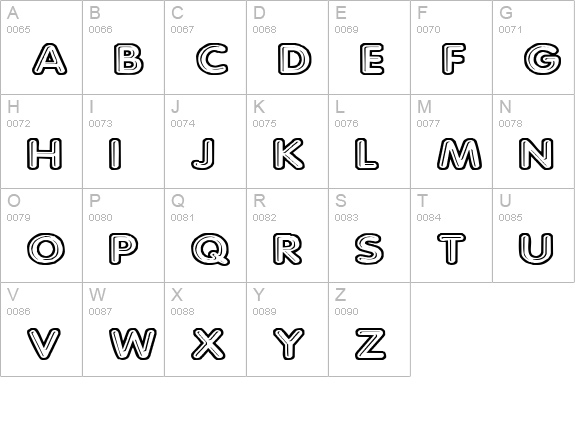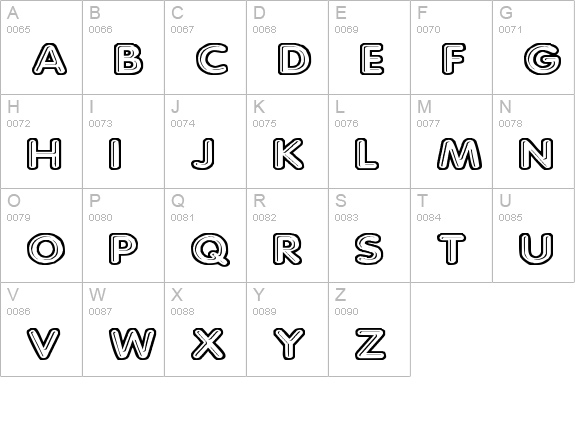
Parkvane Font Details
Parkvane is a modern and stylish font that effortlessly combines elegance with a touch of playfulness. This versatile typeface is perfect for a wide range of design projects, whether you're creating eye-catching logos, captivating headlines, or stunning social media graphics. With its clean lines and balanced letterforms, Parkvane exudes a sense of sophistication and professionalism. Its unique character shapes and subtle flourishes add a hint of personality, making it a font that stands out from the crowd without overpowering your design. One of the best things about Parkvane is that it is free. That's right, this exceptional font is available to download at FontsMarket.com, completely free of charge. Whether you're a professional designer looking to add a new font to your collection or a hobbyist seeking to enhance your creative projects, Parkvane is there for you, without any cost. The versatility of Parkvane is further enhanced by its extensive language support, ensuring that it can be used for projects in various languages and regions. Its carefully crafted kerning and spacing guarantee optimal legibility, even at smaller sizes. Designed with attention to detail and a passion for aesthetics, Parkvane is truly a font that elevates your designs to the next level. Its sleek and modern appearance, coupled with its free availability at FontsMarket.com, makes it a must-have for any designer or creative enthusiast. Download Parkvane today and let your imagination soar.